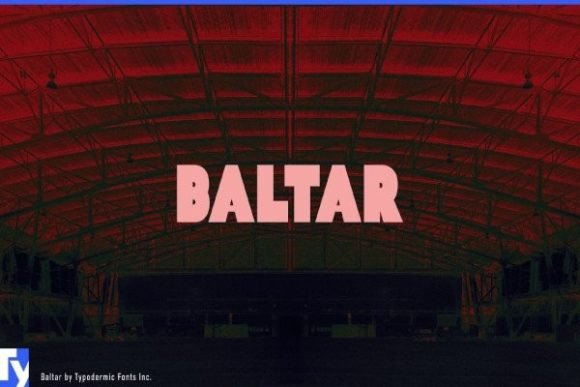
Baltar, Bold Display Font for Posters & Merchandise
Baltar is a heavy sans‑serif display font featuring thick, assertive strokes and a solid geometric structure. Its bold weight and condensed feel make it excellent for prominent headlines, signage, logos, posters, merchandise, and other designs where impact and readability matter.
- Logos, wordmarks, and branding assets with bold typography
- Posters, flyers, banners, signage — ideal for headlines and display text
- Merchandise & POD items — t‑shirts, mugs, tote bags, stickers, packaging
- Social media and digital graphics needing attention‑grabbing titles or headings
- Cut‑file based crafts — vinyl decals, paper‑cut signs, mockups, packaging labels
- Bold, heavy letterforms that make headlines and titles pop
- Clear geometric design — ideal for display use where readability and impact matter
- Versatile — works for digital graphics, print, merchandise, signage, and crafts